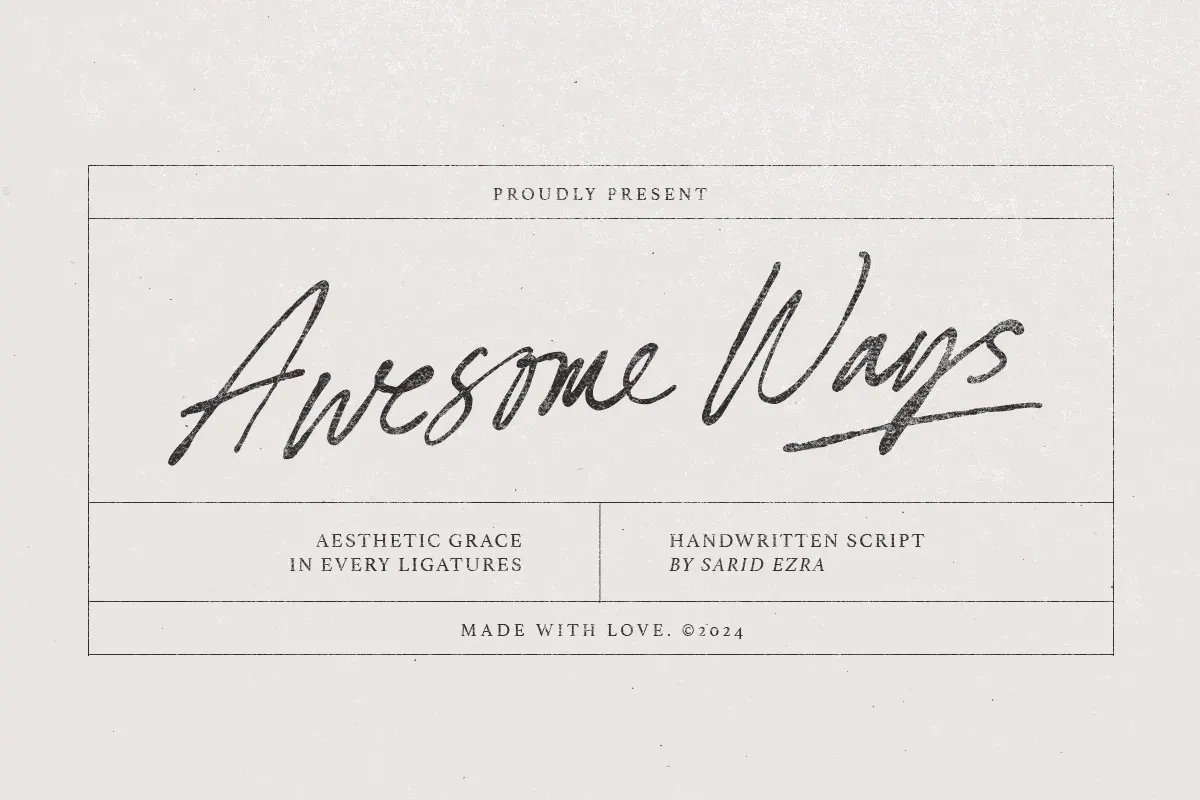
Awesome Ways - Ligature Script Font Free Download is an elegant and stylish script typeface that features beautiful ligatures, making it perfect for projects that require a sophisticated, handwritten look. The fluidity and natural flow of the font, combined with its unique ligatures, bring a personalized, authentic touch to any design.
This font is ideal for wedding invitations, logos, branding, social media graphics, and any project where you want to add a touch of class and creativity. Its charming ligatures and smooth letterforms make it a perfect choice for luxury brands, romantic designs, or anything that needs a refined, personal touch.